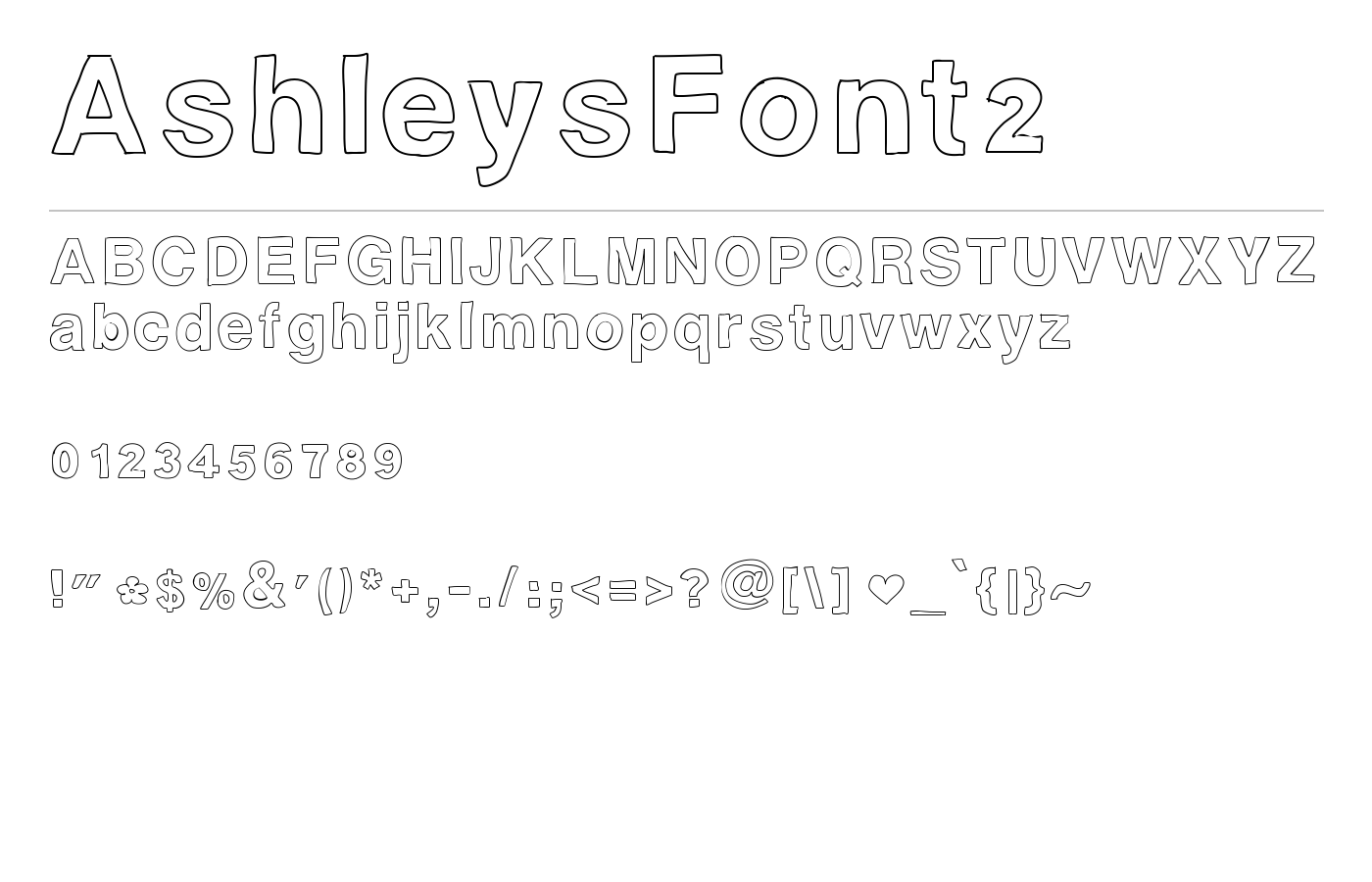
AshleysFont2 is a playful, outlined sans serif font with a casual, hand-drawn feel. Its rounded shapes and moderate x-height create an approachable and friendly look, making it perfect for informal designs, children's materials, and creative projects that need a lighthearted touch. This font works well for headlines and display uses where fun and accessibility are key.
AshleysFont2 Font
About AshleysFont2 Font